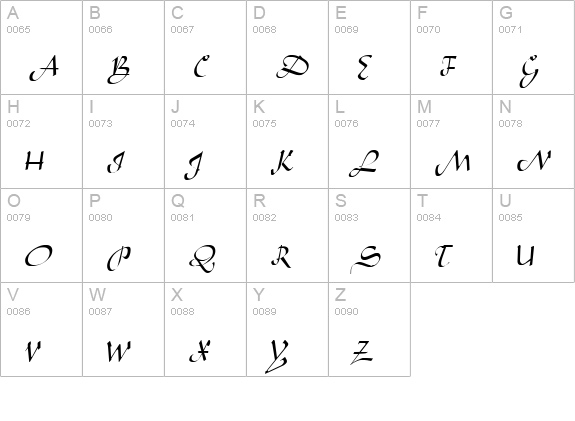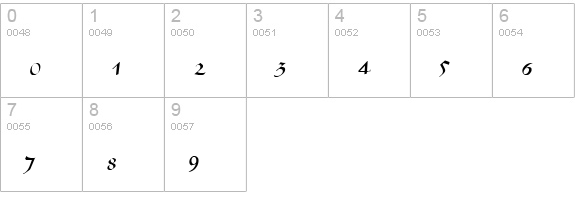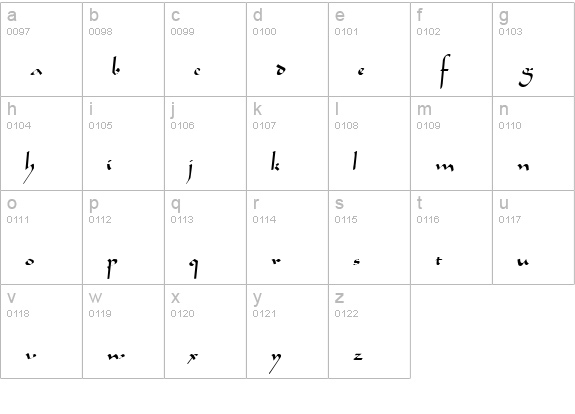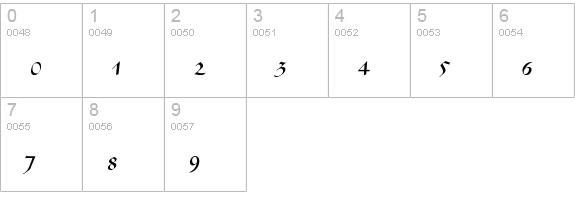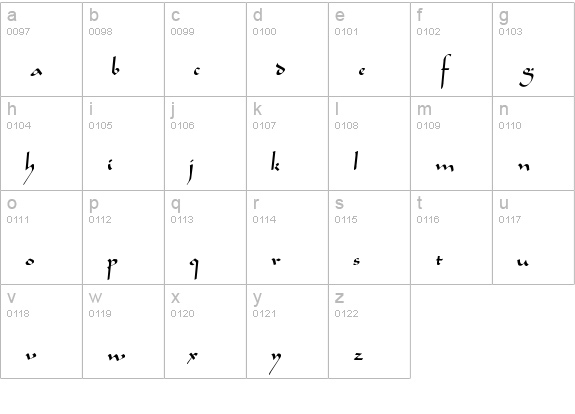
Arabian Regular is the standard, neutral variant in the Arabian typeface family \xE2\x80\x94 well suited to general body text, paragraphs, and standard typographic work.
Arabian Regular font is a timeless and elegant typeface that exudes sophistication and charm. Its graceful curves and intricate details make it a perfect choice for projects that require a touch of Arabian-inspired flair. This versatile font is well-suited for a variety of design applications, from branding and advertising to invitations and web design. The best part? Arabian Regular font is available for free download at FontsMarket.com. Now you can add a touch of Arabian magic to your projects without breaking the bank. Don't miss out on this opportunity to enhance your designs with the beauty of Arabian Regular font. Download it today and let your creativity soar!